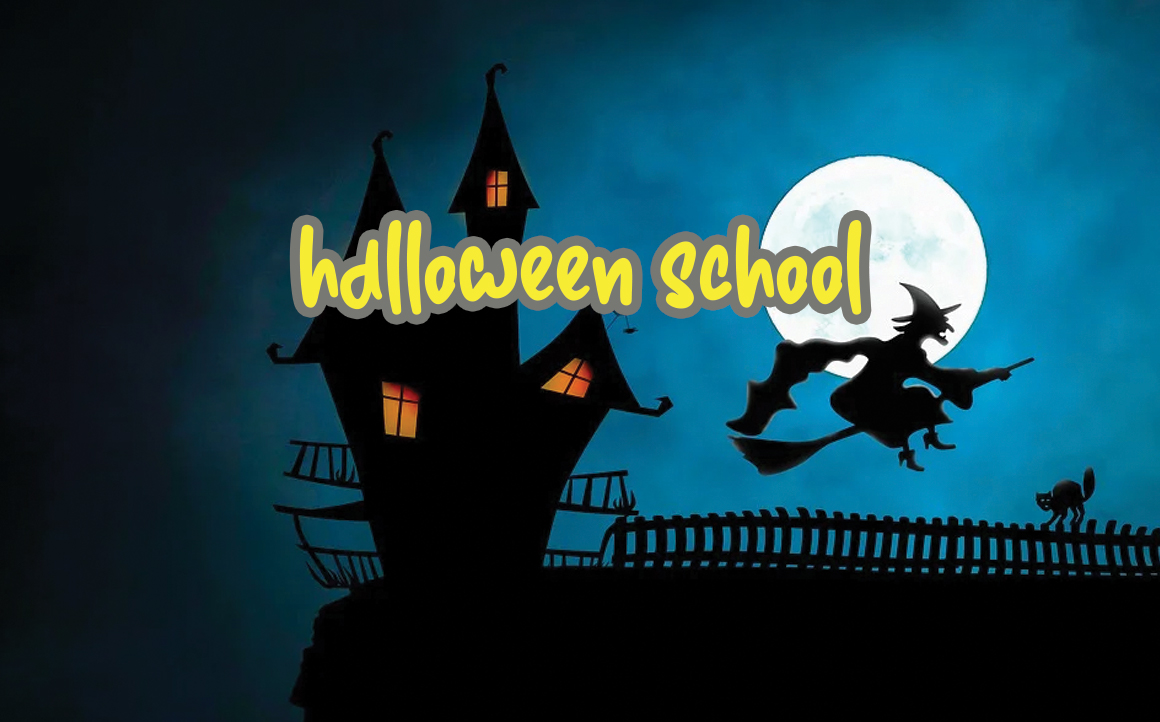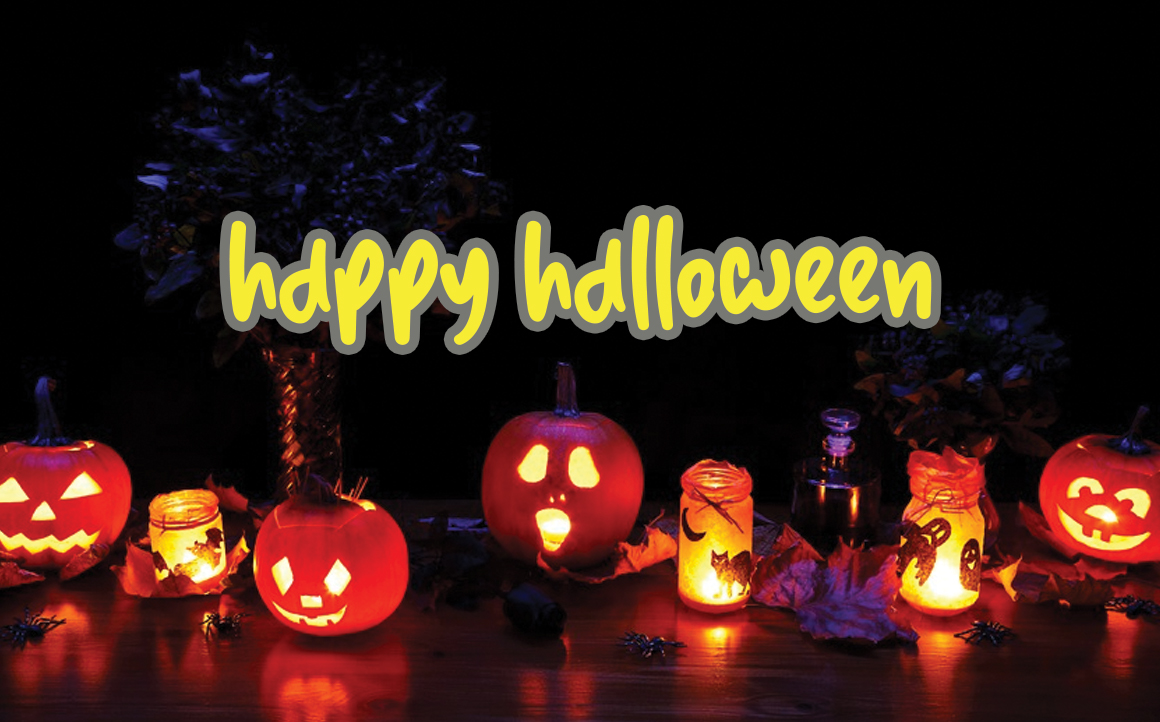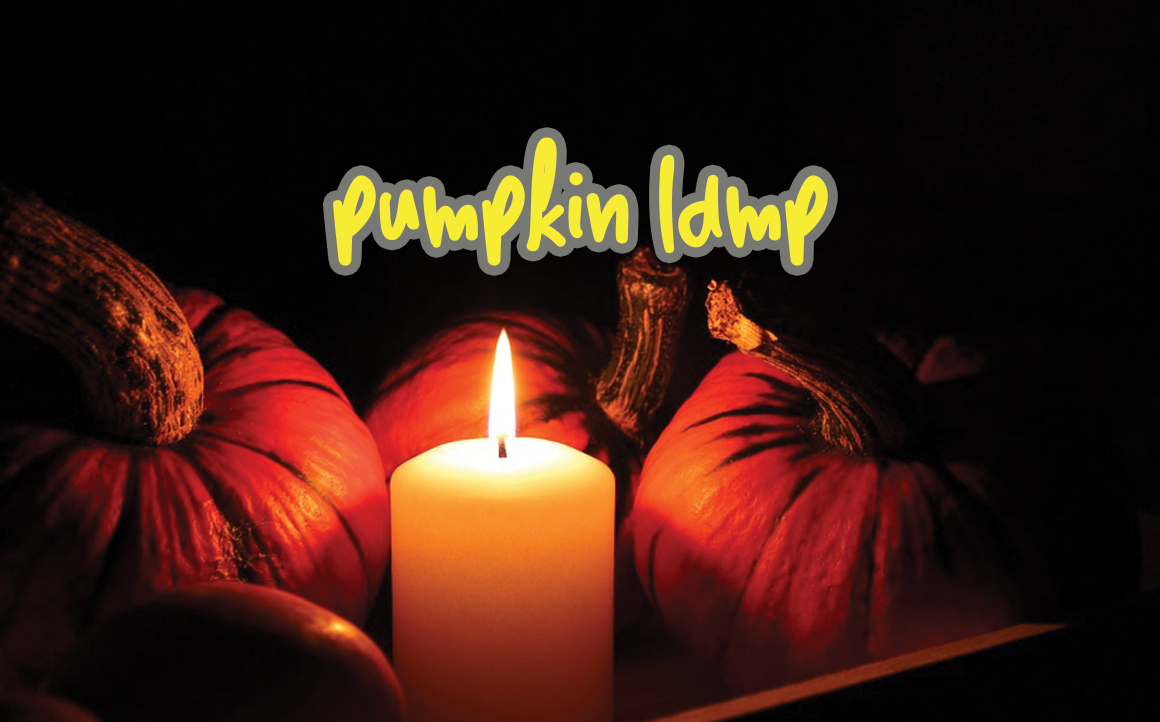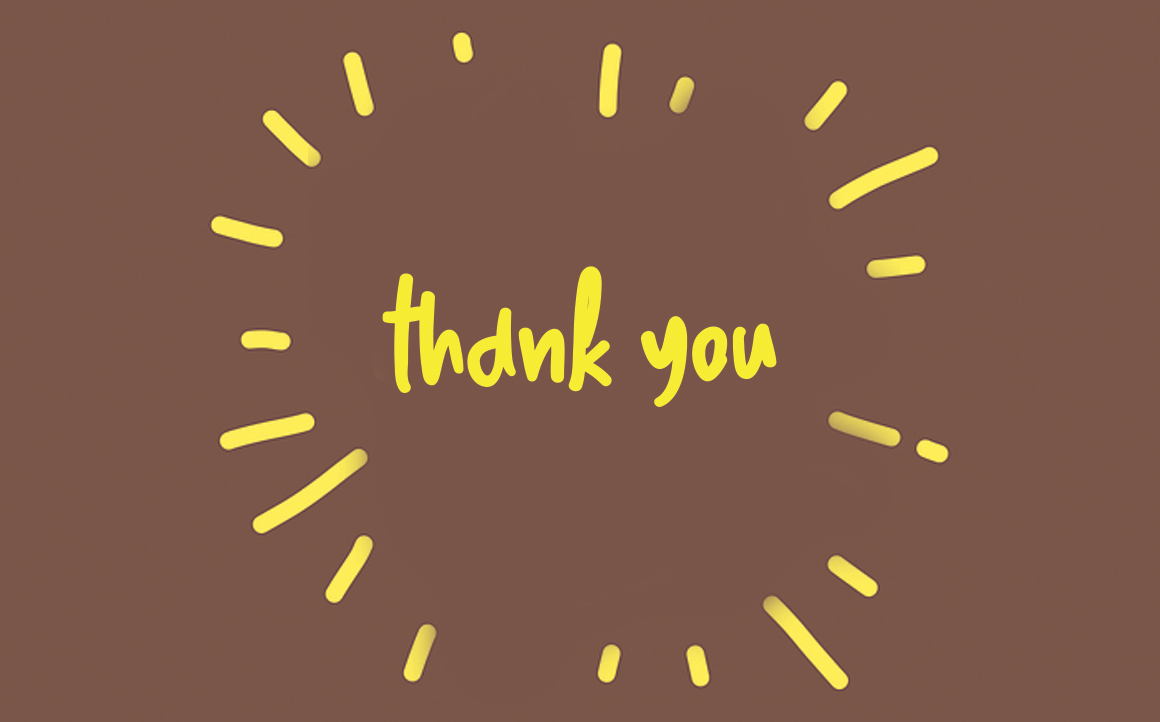
Monster Pumpkin Font
Monster Pumpkin Script Font
It’s a unique, fun and friendly handwritten font. Whether you’re looking for a font for Instagram or a calligraphy script for a DIY project, this font will turn any creative idea into a true work of art!